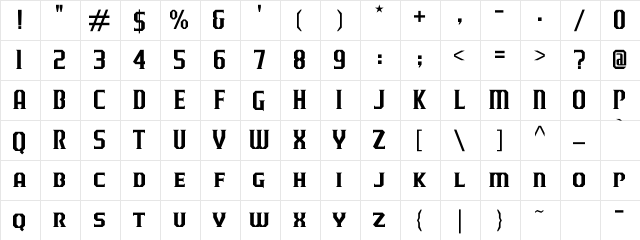
J-LOG Razor Edge Small Caps Regular
Designer: John L. Ocasio
Design Context for J-LOG Razor Edge Small Caps
J-LOG Razor Edge Small Caps is a composed and adaptable typeface that performs quietly and consistently across a wide range of design contexts.
Pro Tip: Use J-LOG Razor Edge Small Caps in both headline and body roles to test its range before committing to a single application.